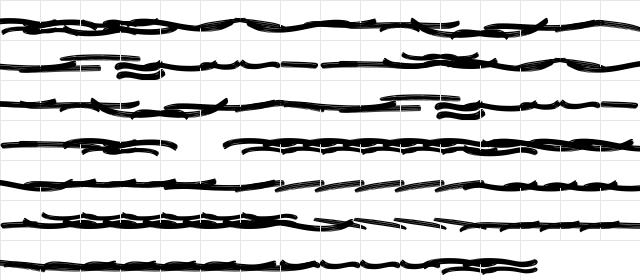
Granada Swash
| Designer | Iis Syifauarrahmah (Peterdraw) |
Design Context for Granada Typeface
Granada brings a calligraphic fluidity to the page — its connecting strokes and expressive curves give it an unmistakably human quality.
Font Pairing: Combine Granada with a simple geometric sans for maximum contrast — the tension between flowing curves and clean structure is a classic typographic pairing.
Pro Tip: Pair Granada with a clean sans-serif for supporting text. The contrast between fluid script and geometric structure creates an elegant typographic hierarchy.